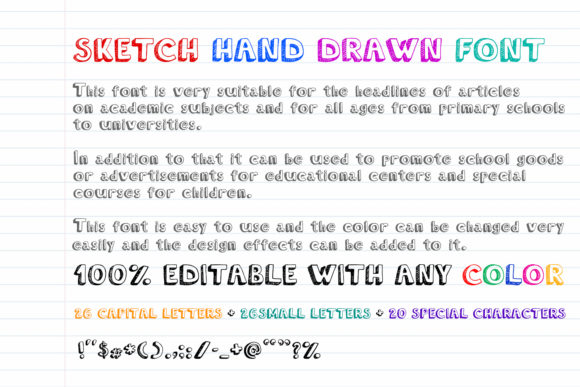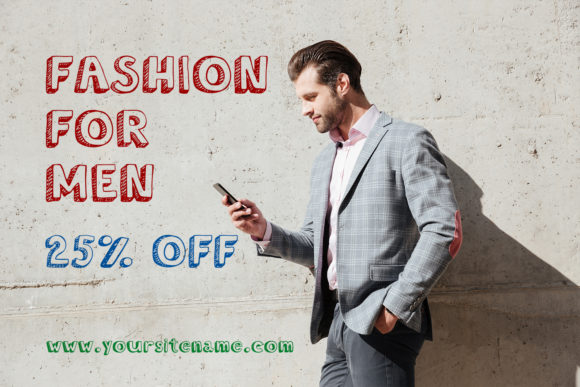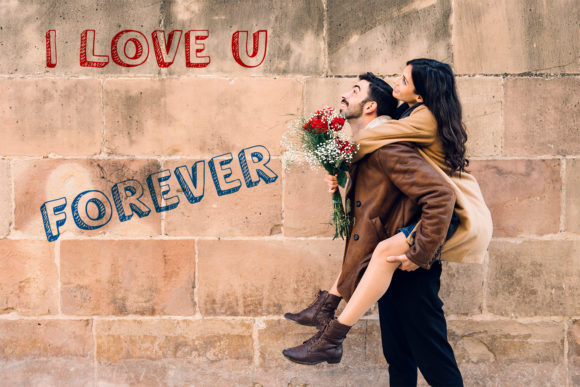
Introduction to Sketch Hand Drawn Font
Sketch Hand Drawn is a fun and original handwritten font.
Use this gorgeous and unique font to bring any DIY project to life .
Key Features of Sketch Hand Drawn Font
Why Choose Sketch Hand Drawn Font?
Sketch Hand Drawn Font offers exceptional quality and versatility, making it a valuable addition to your design toolkit. Whether you’re creating for personal projects or commercial use, Sketch Hand Drawn Font delivers professional results.